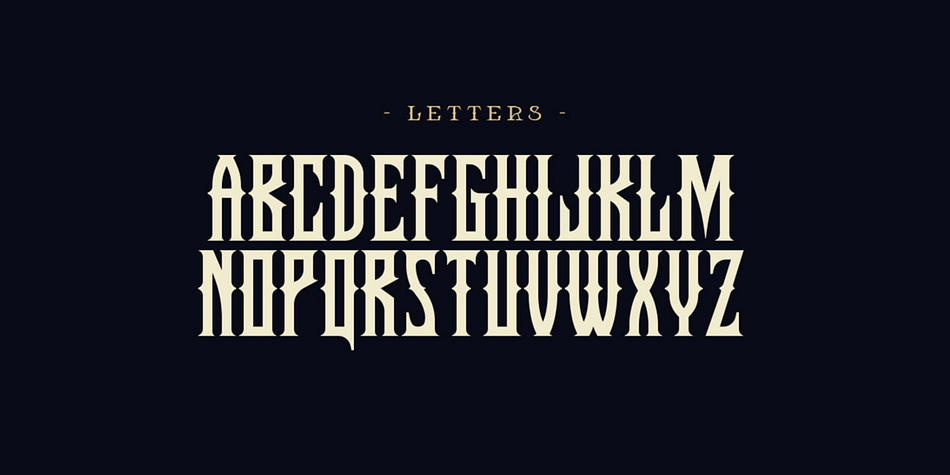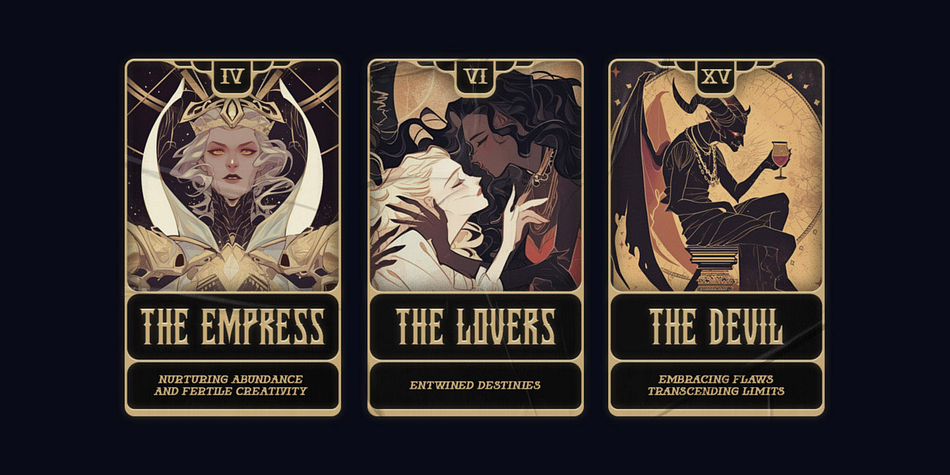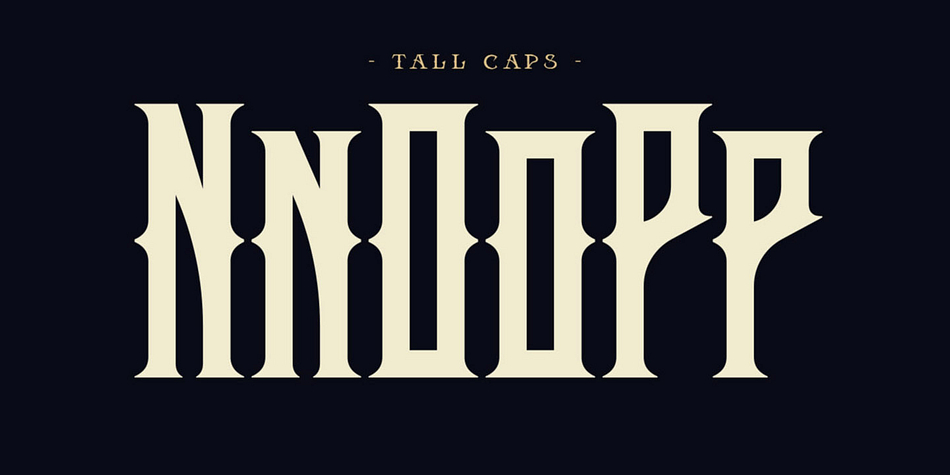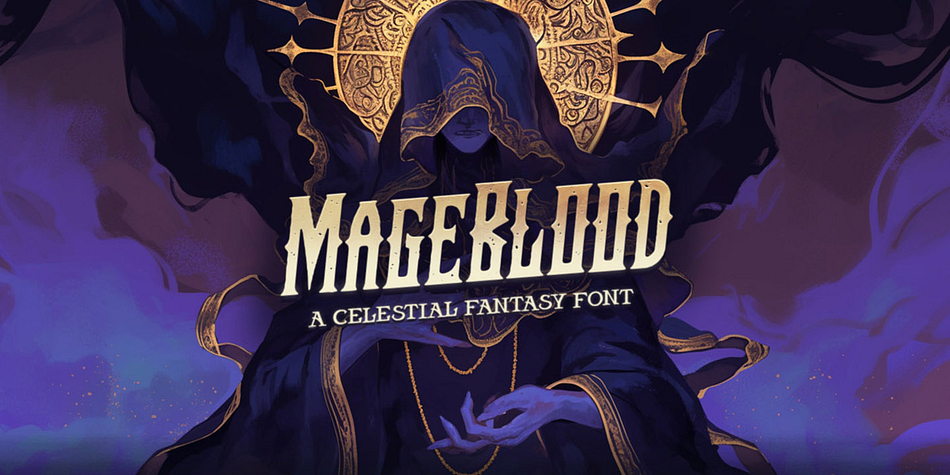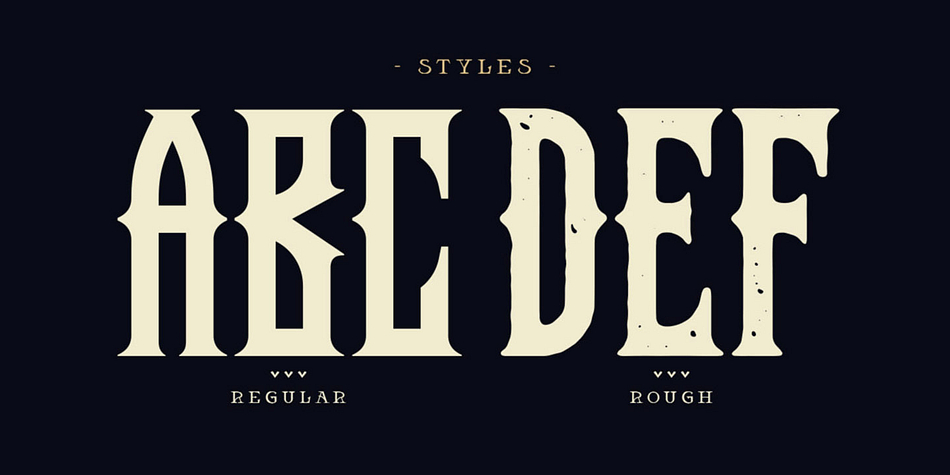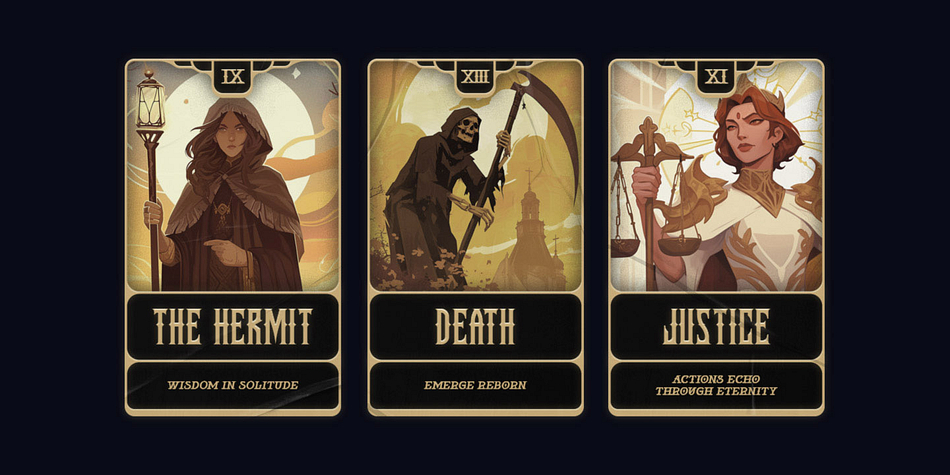
Mageblood
Mageblood is a display serif font family. This typeface has two styles and was published by Tugcu Design Co.
MageBlood is a fantasy font full of spurs and mystique. Toggle Caps Lock for taller uppercase letters. Comes in regular and rough styles.